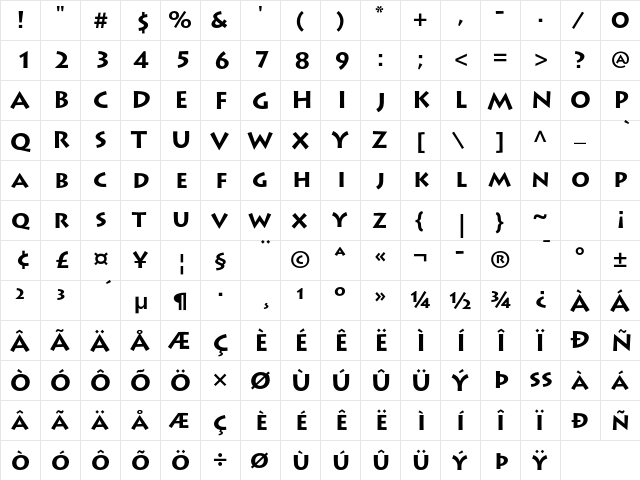
Lithos Pro Bold
Bold ·  Carol Twombly ·
Design Context for Lithos Pro Typeface
Lithos Pro offers clean, dependable letterforms without strong stylistic allegiance, making it a practical choice for designers who need flexibility. The heavy weight commands attention and anchors typographic hierarchies.